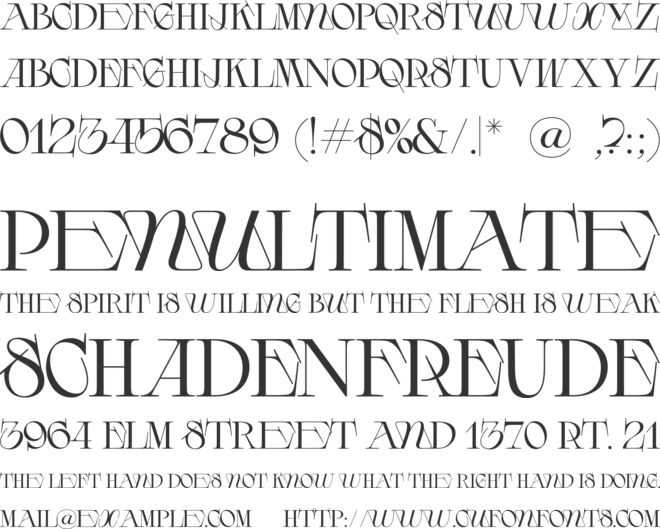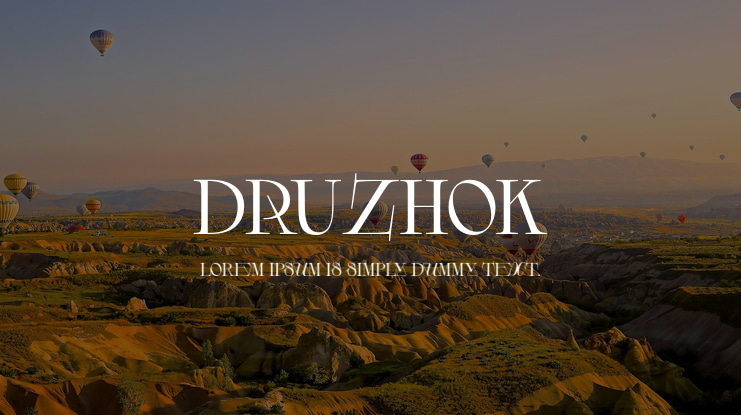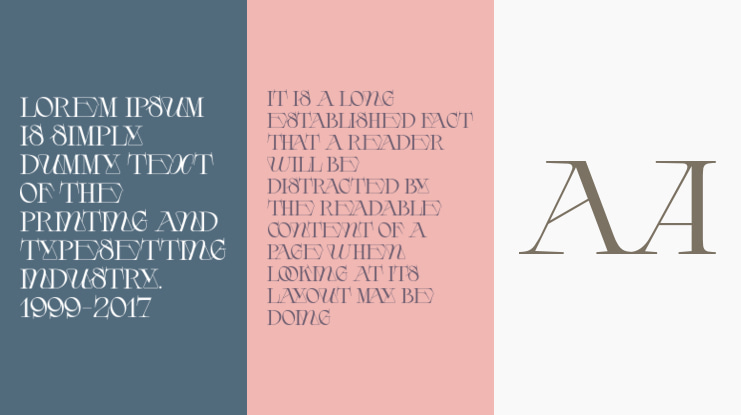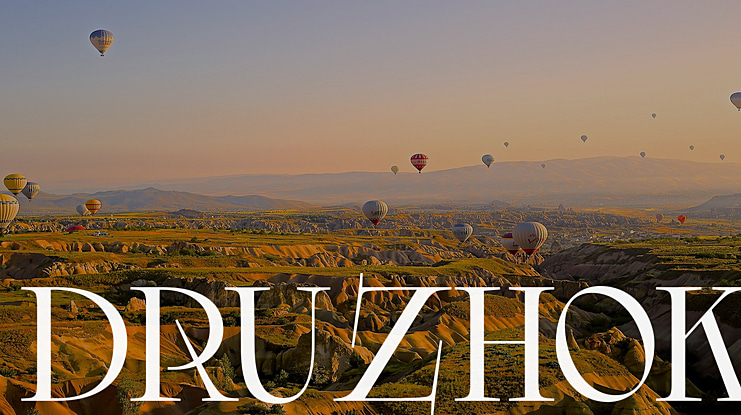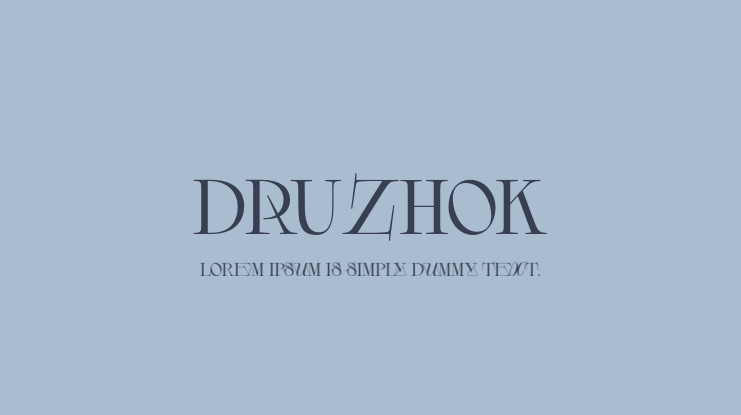
DRUZHOK Font
This is a highly aesthetic feminine display serif typeface with many alternative characters and ligatures. It is perfect for your up coming projects. Such as luxury logo and branding, classy editorial design, woman magazine, cosmetic brand, fashion promotional, art gallery branding, museum, historical of architectural, boutique branding, stationery design, blog design, modern advertising design, card invitation, art quote, home decor, book/cover title, special events and any more.